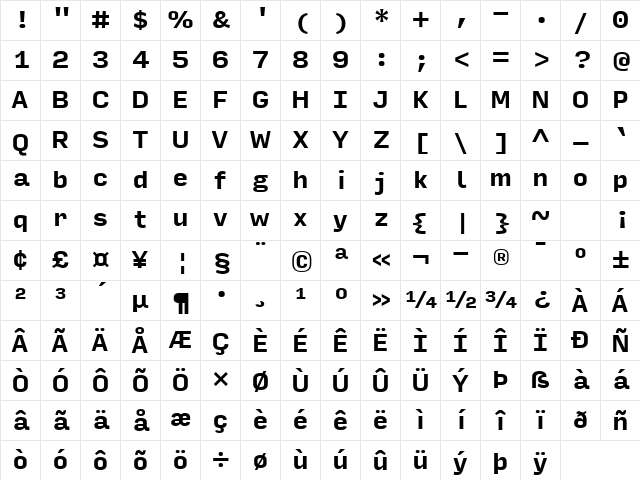
Input Sans Bold
Foundry: David Jonathan Ross and The Font Bureau
Designer: David Jonathan Ross
Design Context for Input Sans
Input Sans is a composed and adaptable typeface that performs quietly and consistently across a wide range of design contexts. Its bold stroke weight gives it real presence on the page.
Who designed the Input Sans Bold font?